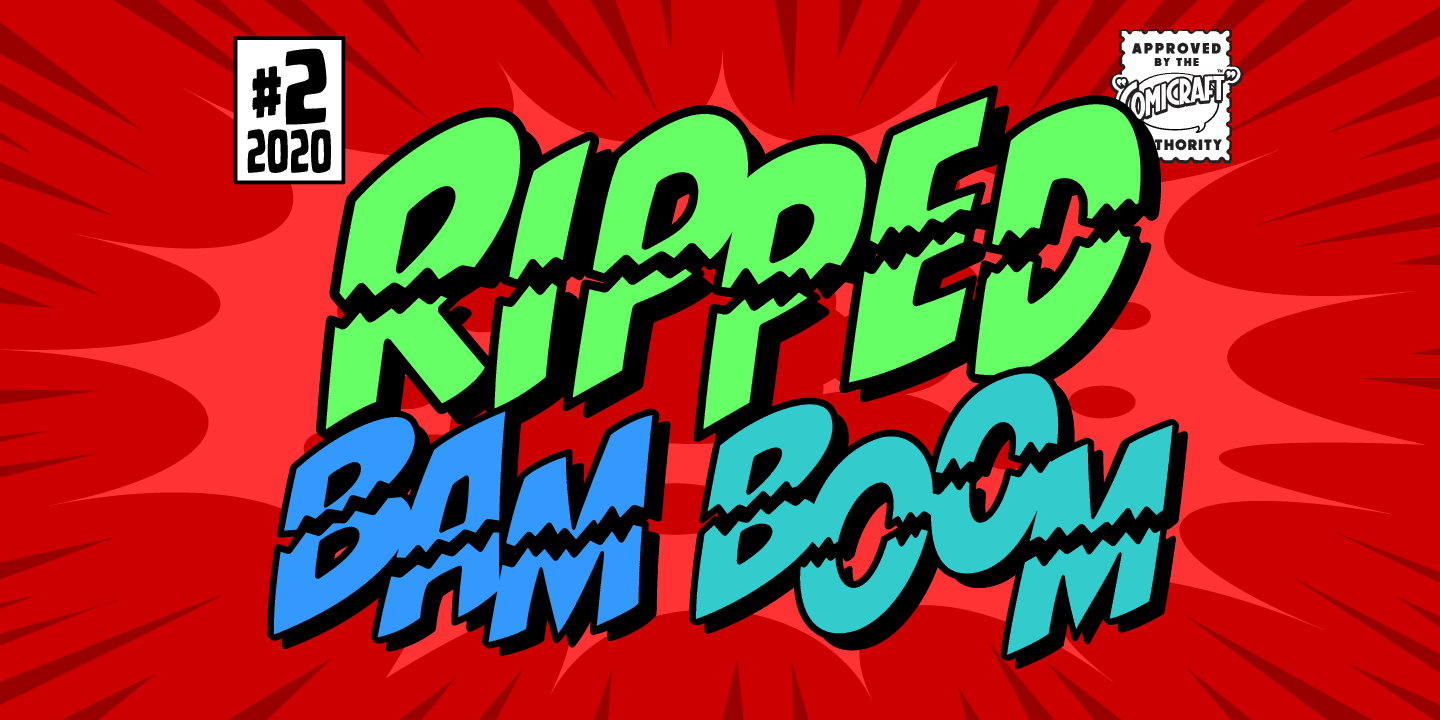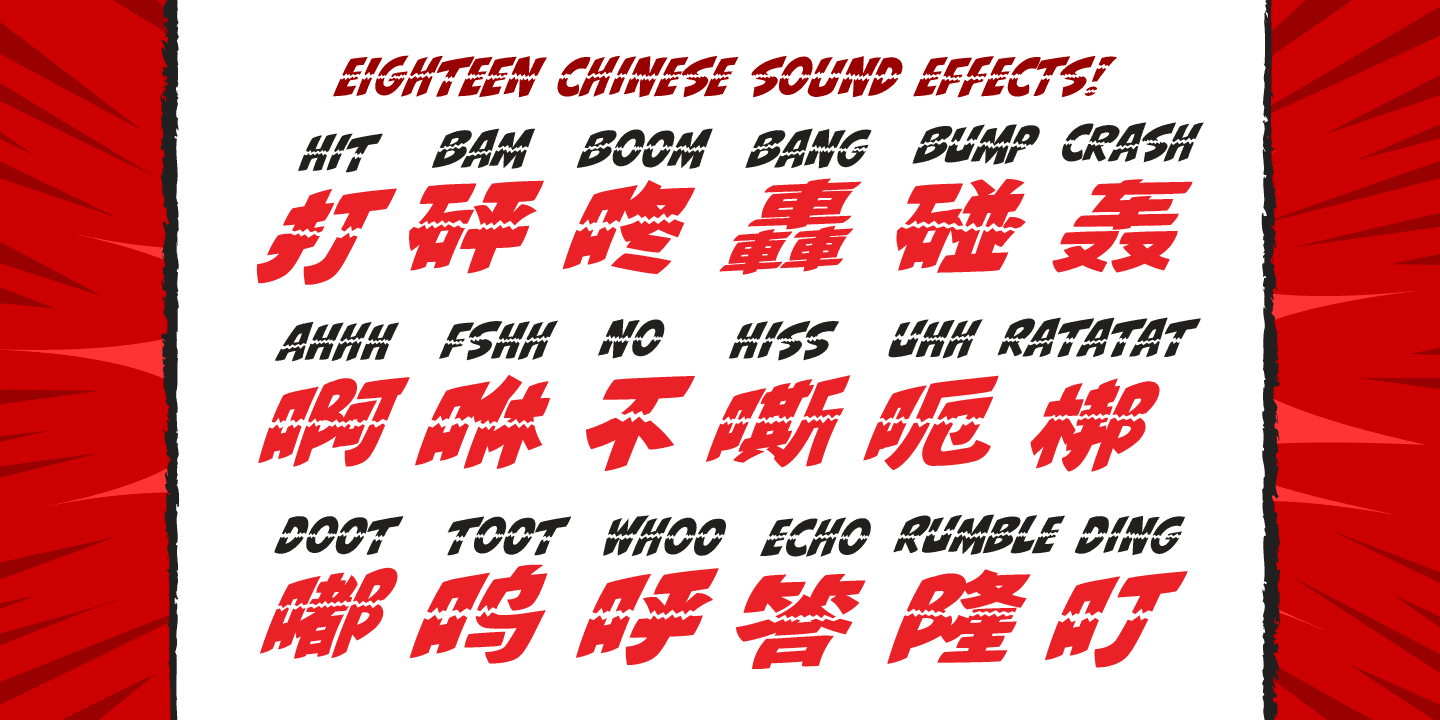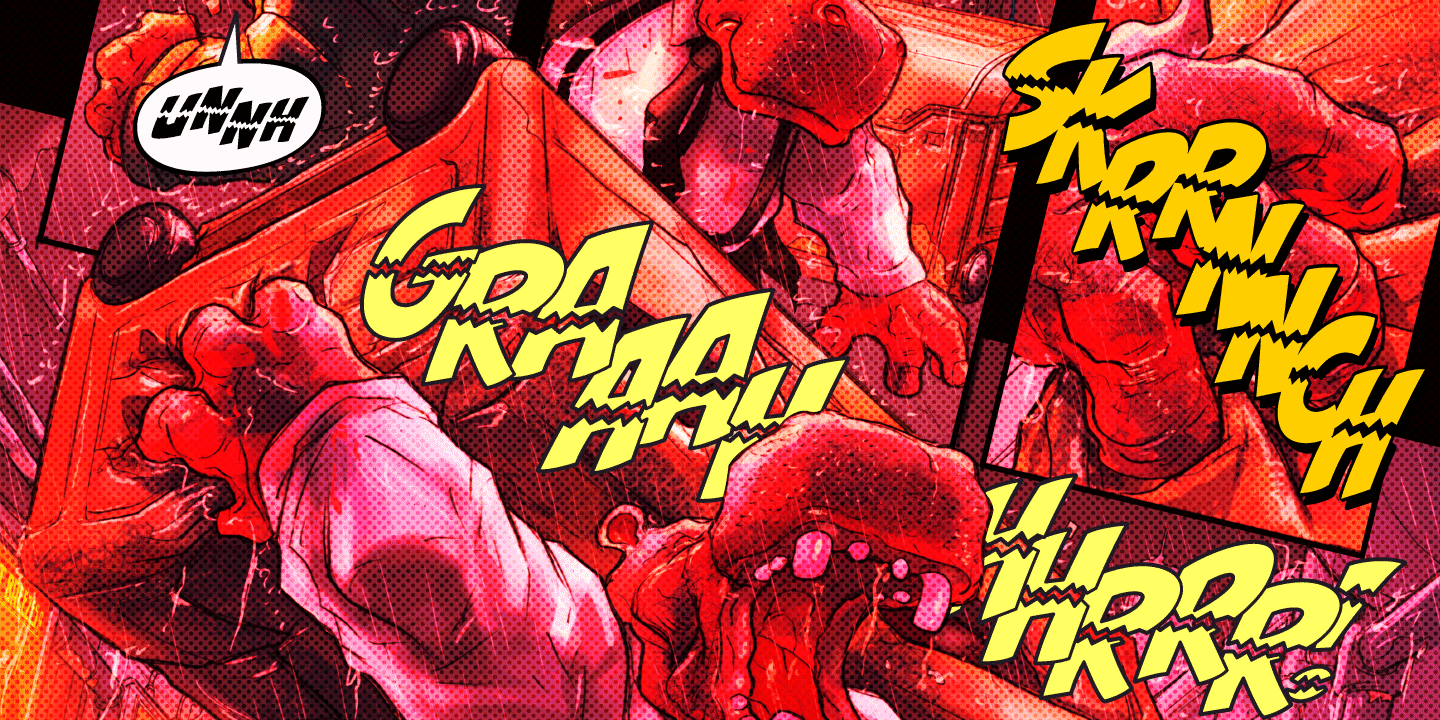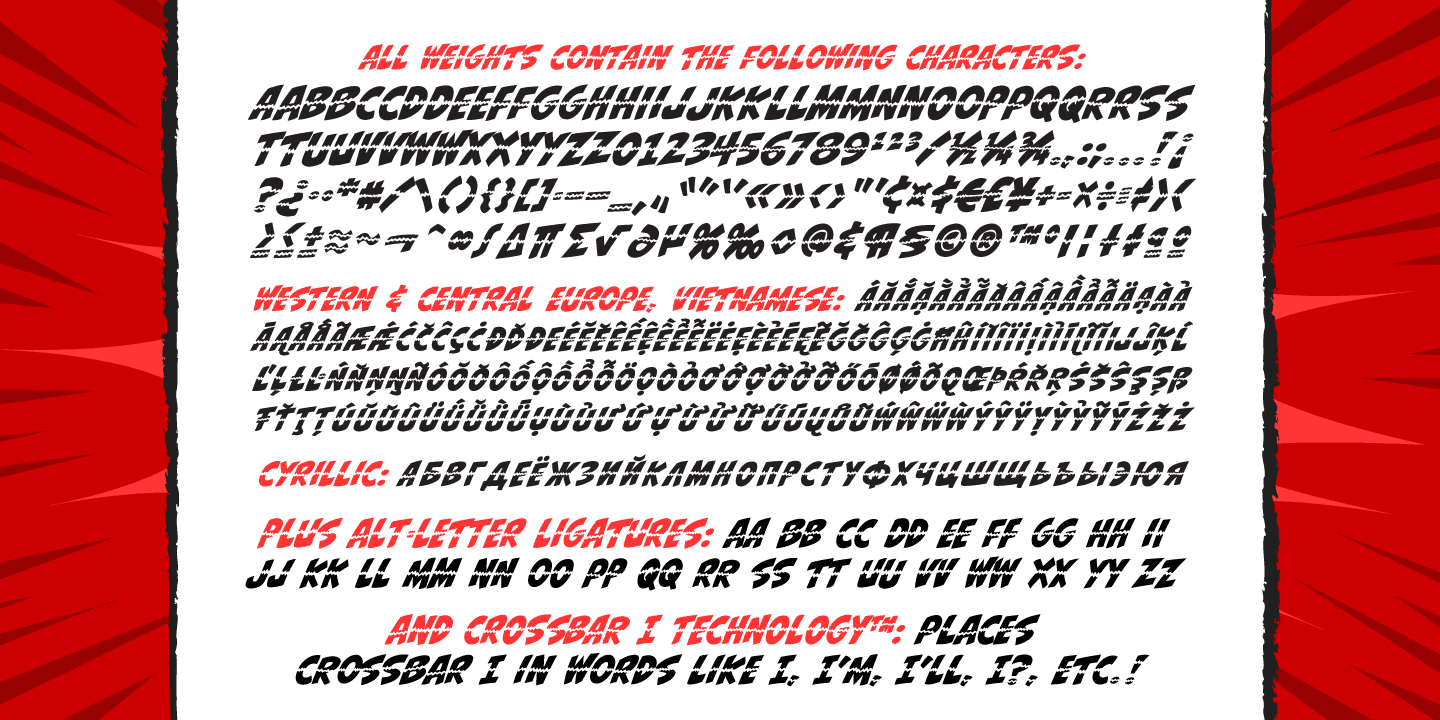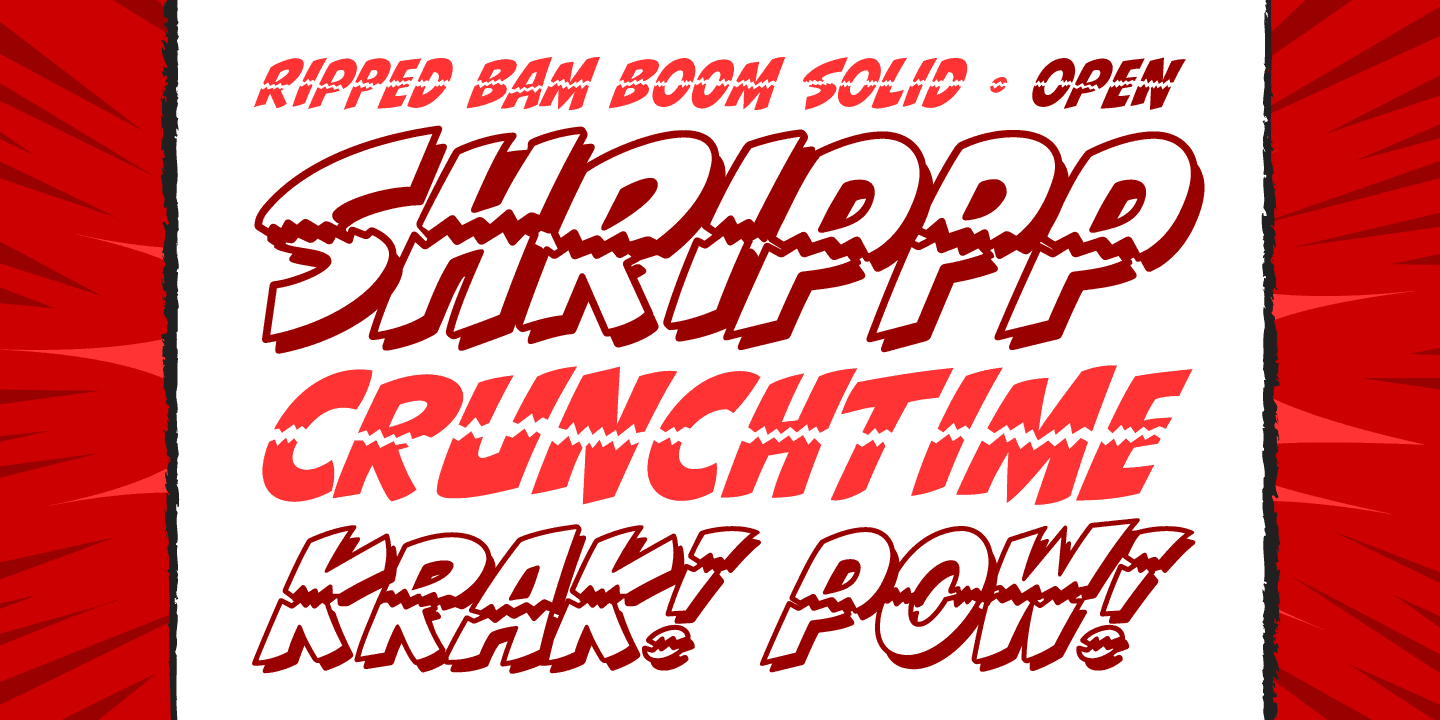
Ripped Bam Boom
Font Family by Comicraft Fonts
It's stronger than the Thing AND the Hulk! It can bench press 500 pound gorillas and send them scurrying into the corner. RIPPED BAM BOOM is a font that can tear through the alphabet faster than you can say “A to Z” and will work your chest, shoulders and triceps and help YOUR characters gain upper-body strength and muscle mass!